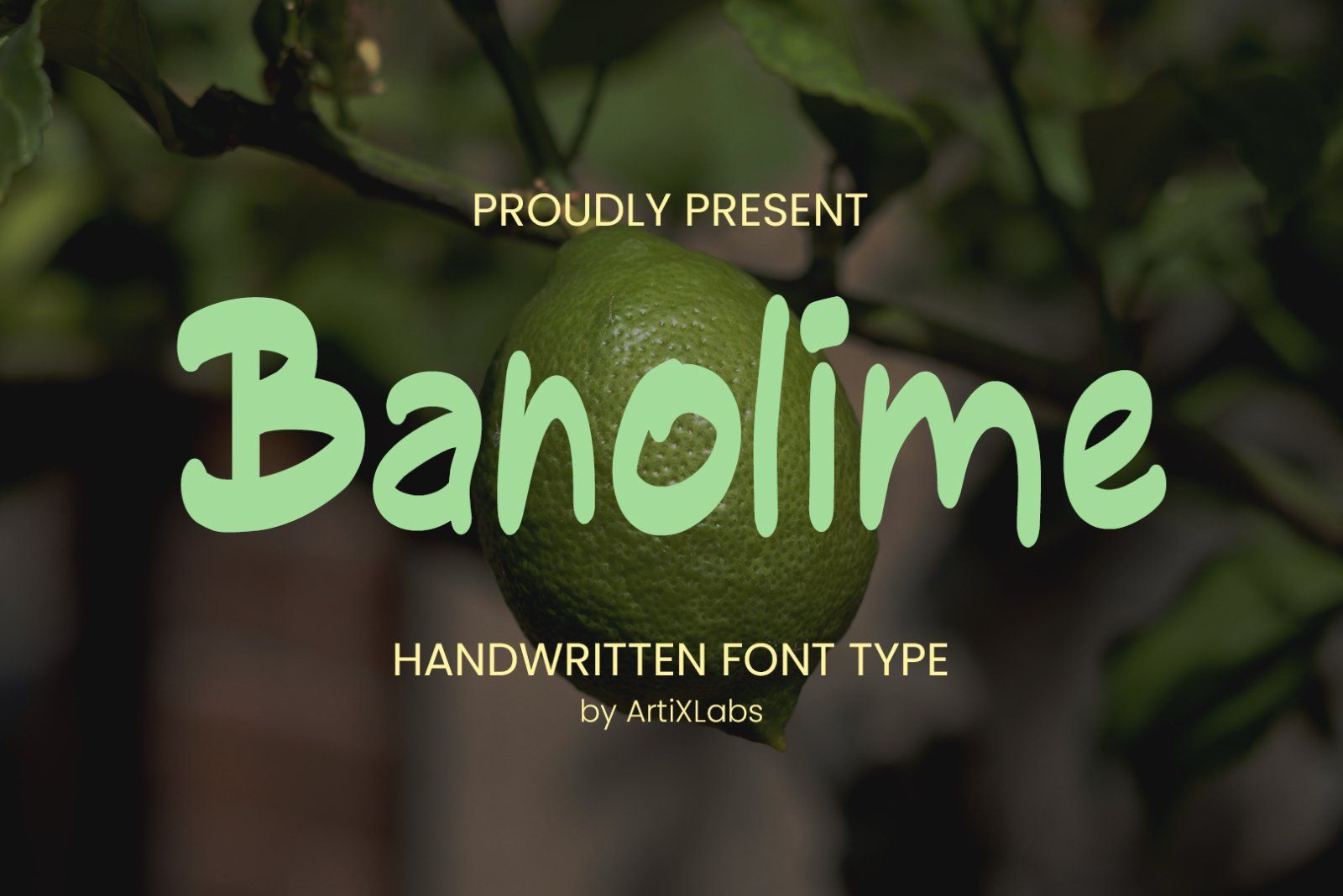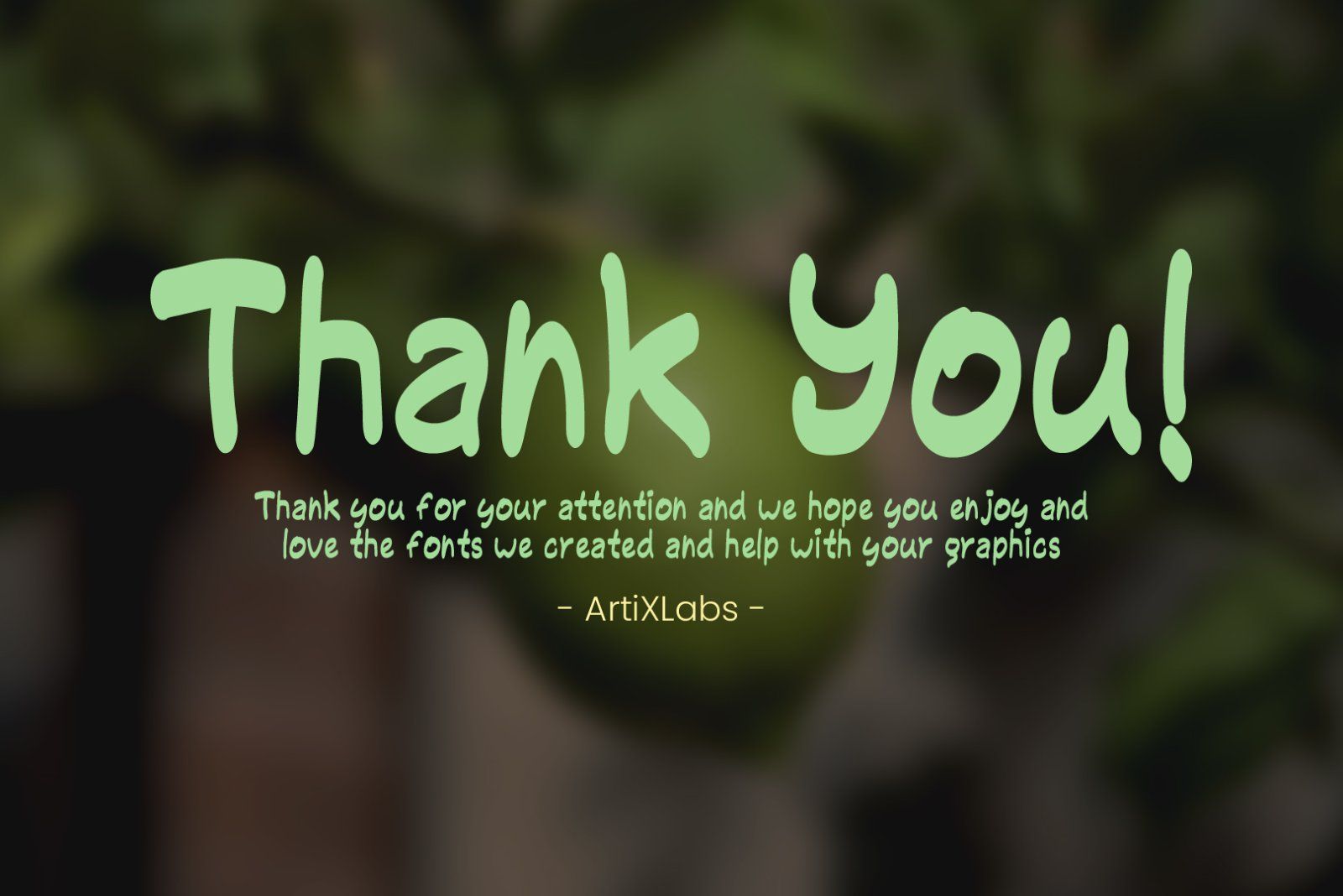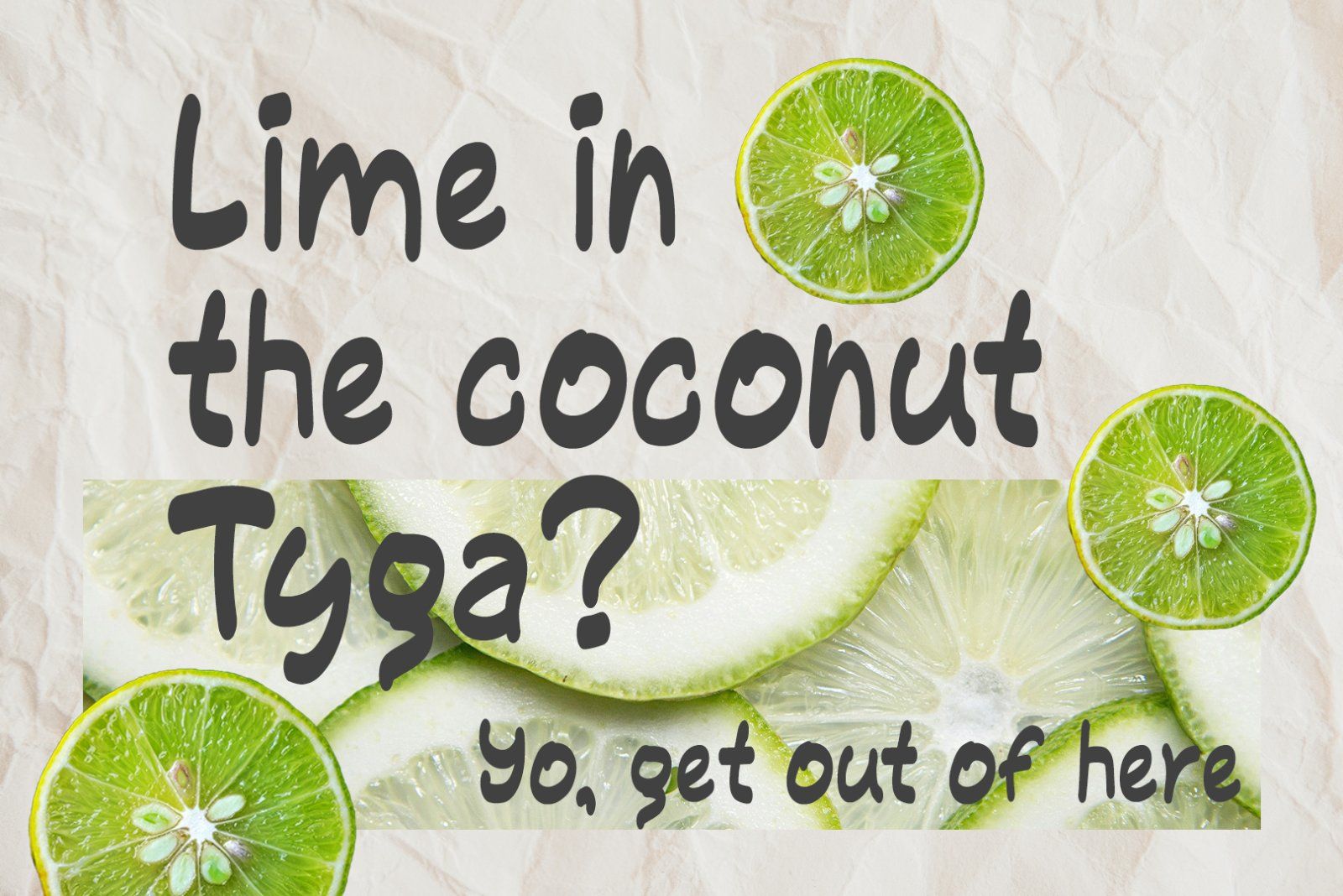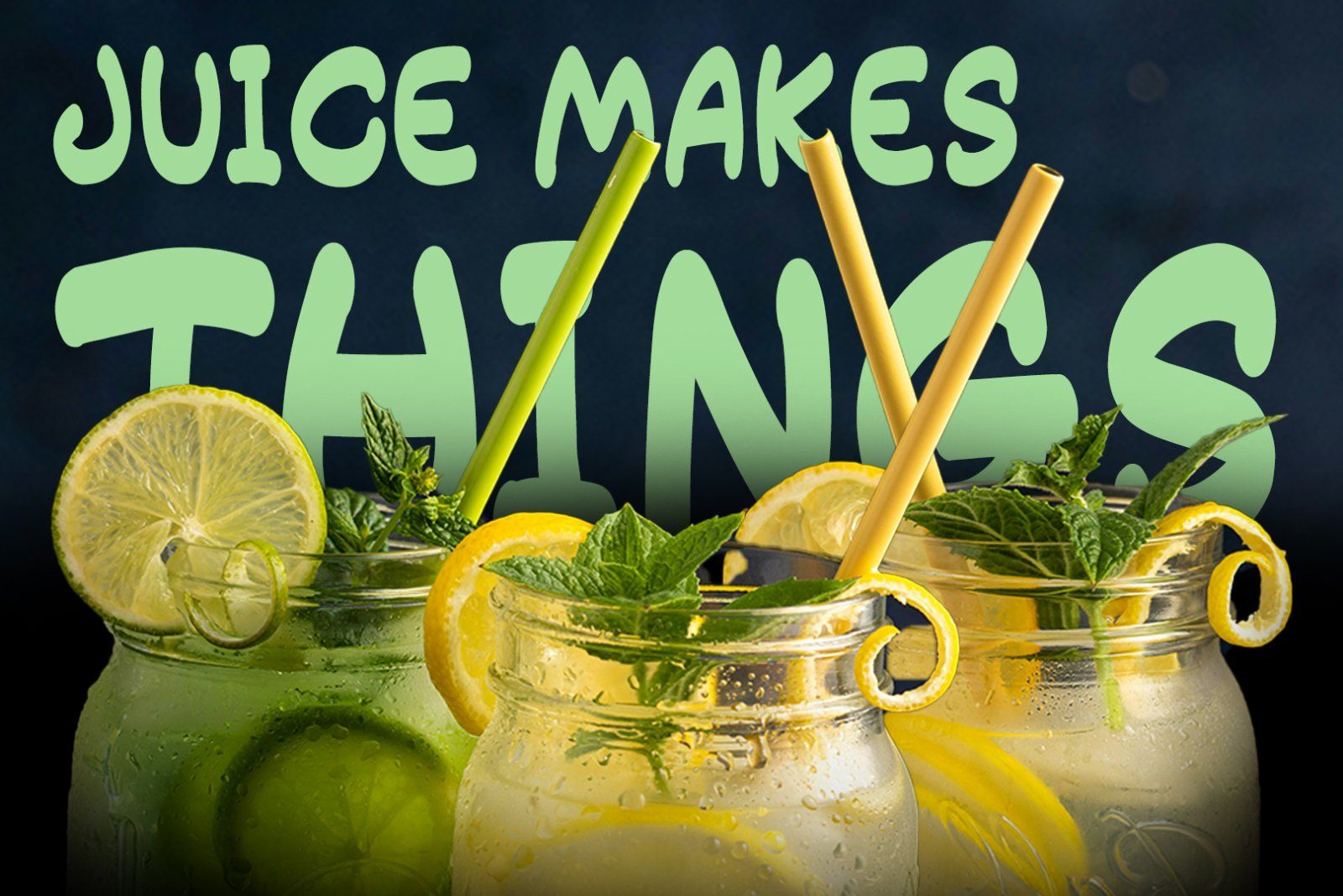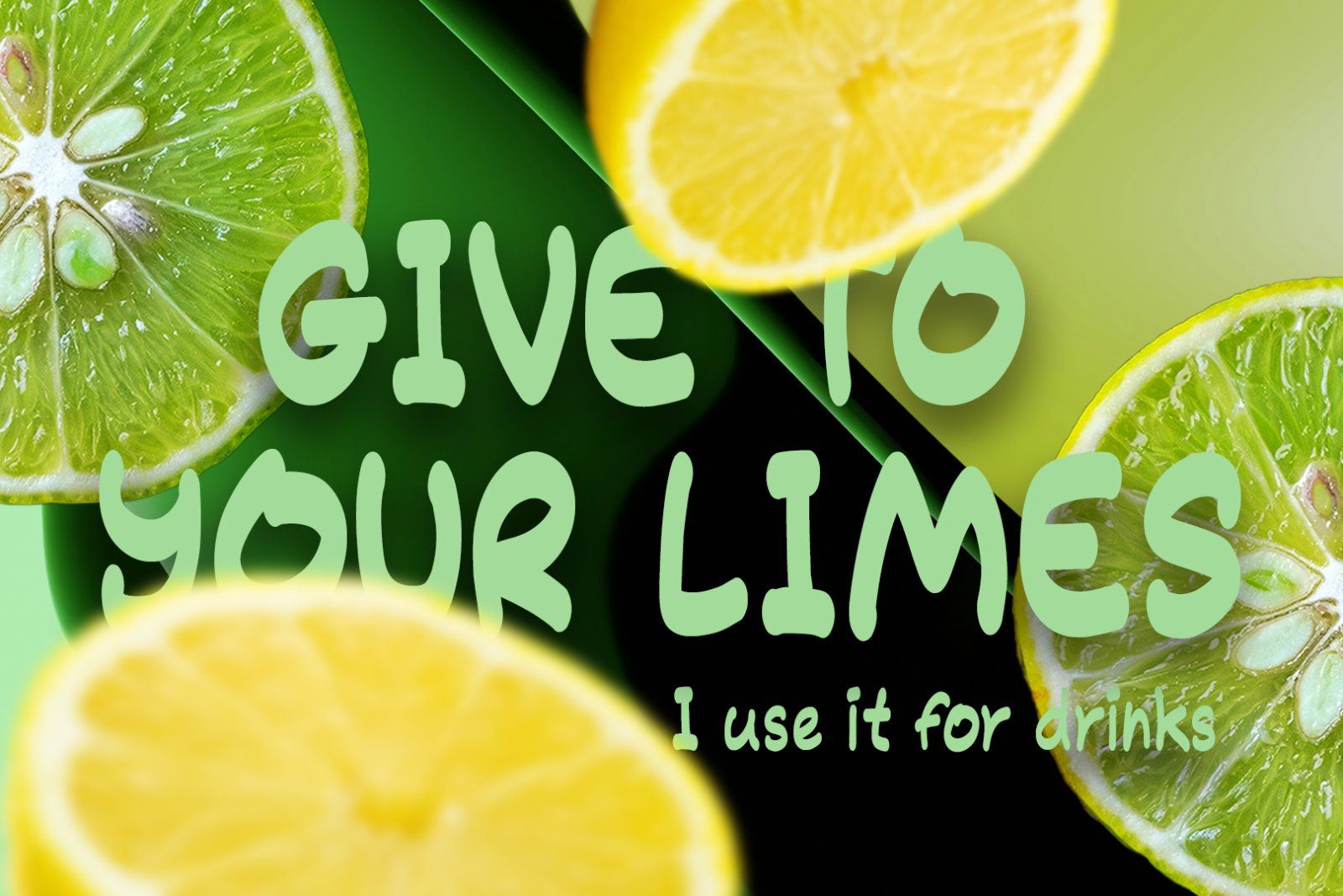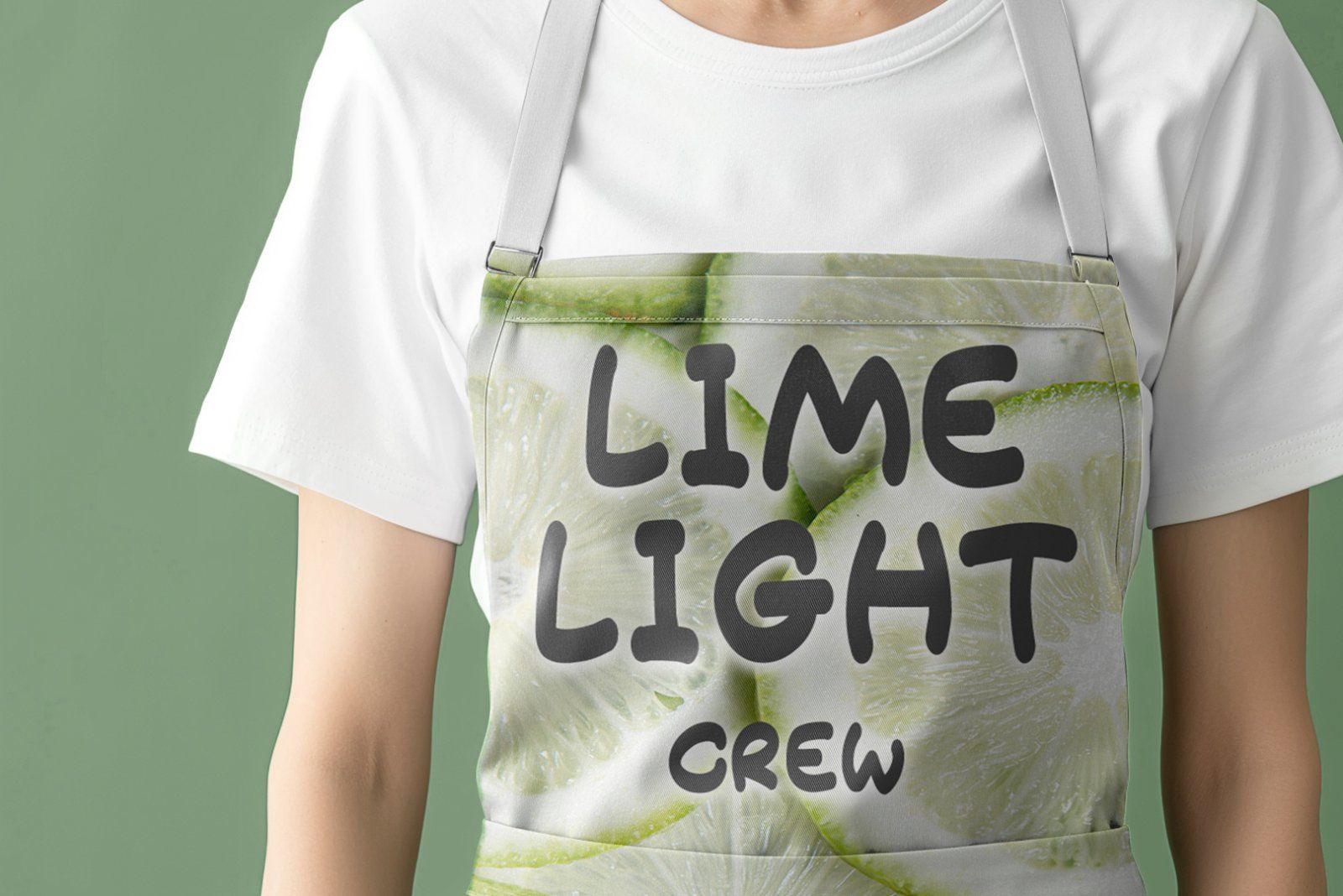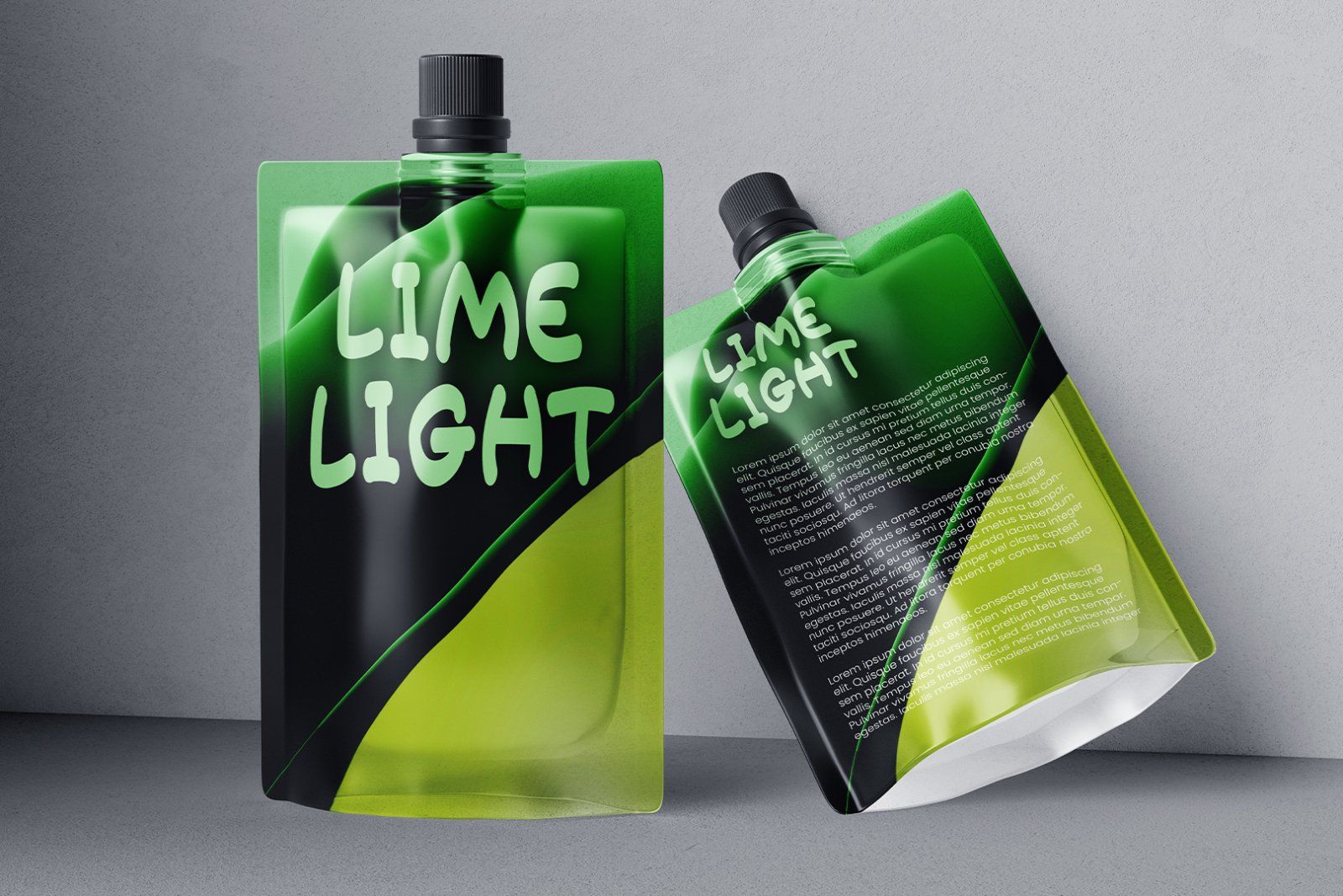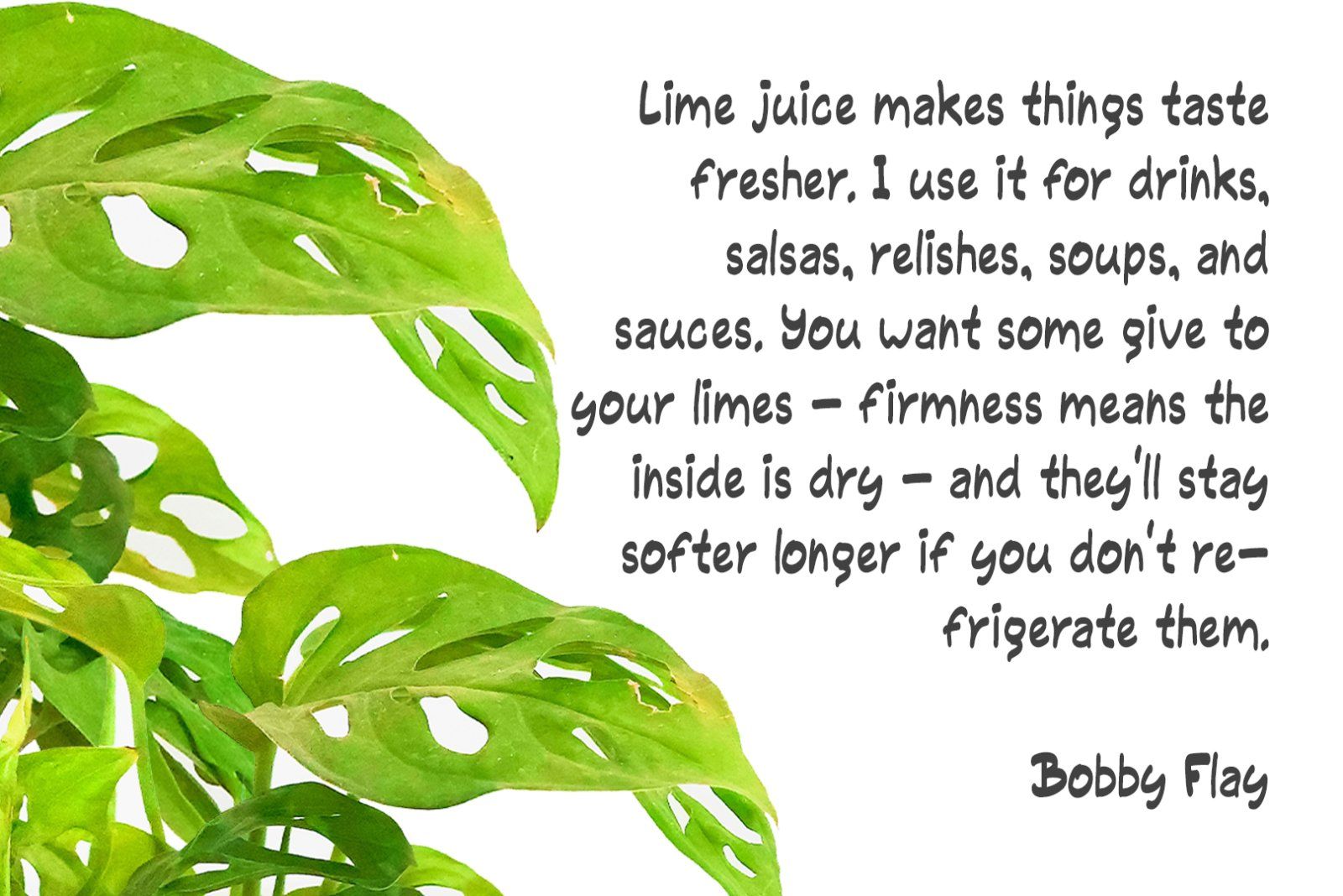
Introducing Banolime - Cute Font
This Font can be used for any variety of purposes, such as:
photography, Wedding, Ceremony, Packaging Products, Logo Type, Branding, T-Shirt Design, Website/Blog, Headline Magazine, Brochures and also can be used for other purpose.
This Font Template contains Classic, Cartoon, Comic, Creative, Cute and Unique Concept.
• Uppercase & Lowercase letters
• Numbering and Punctuations